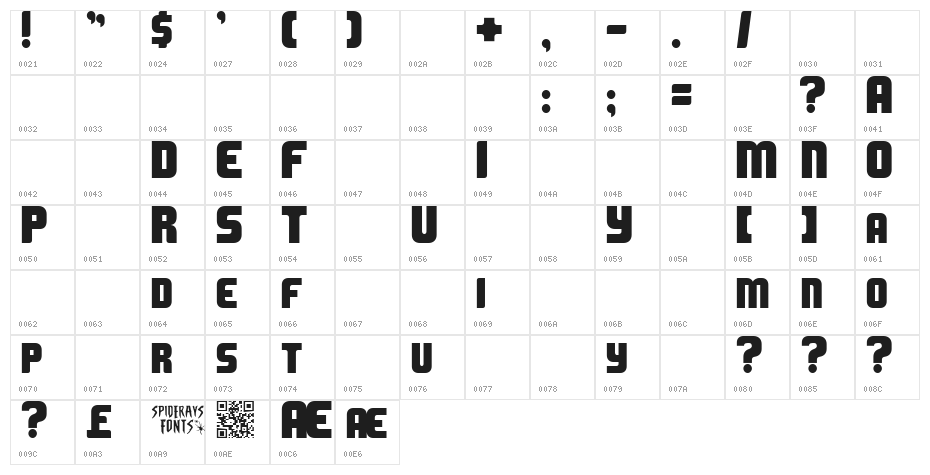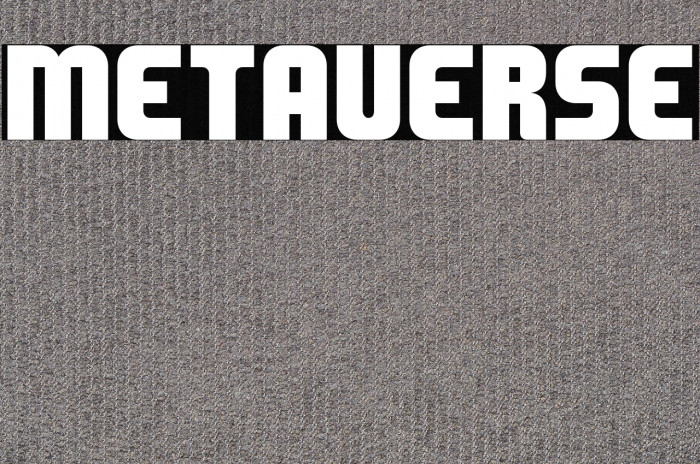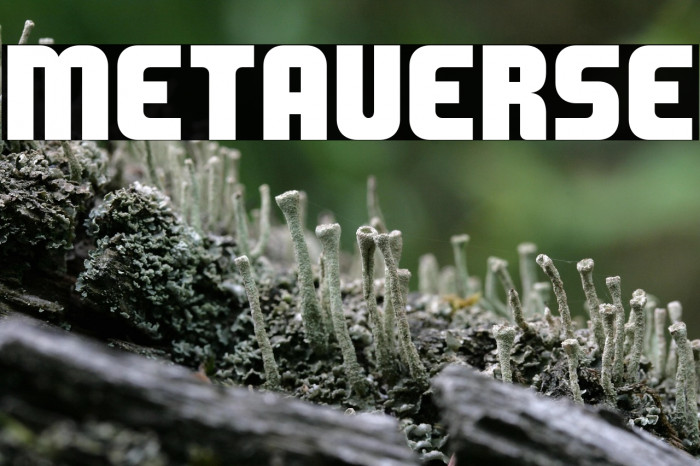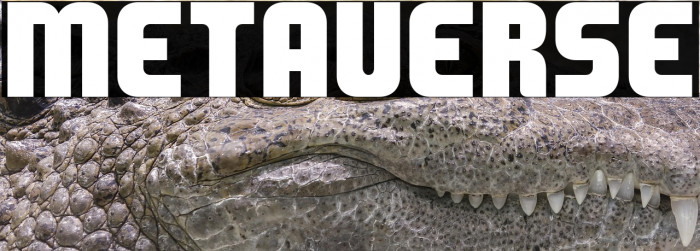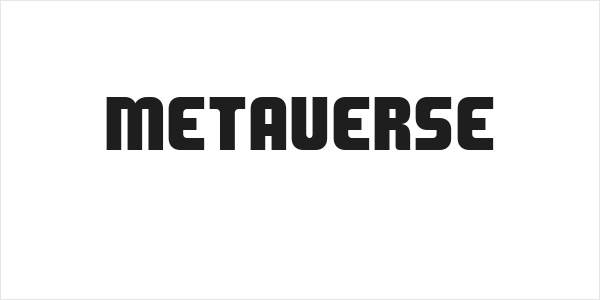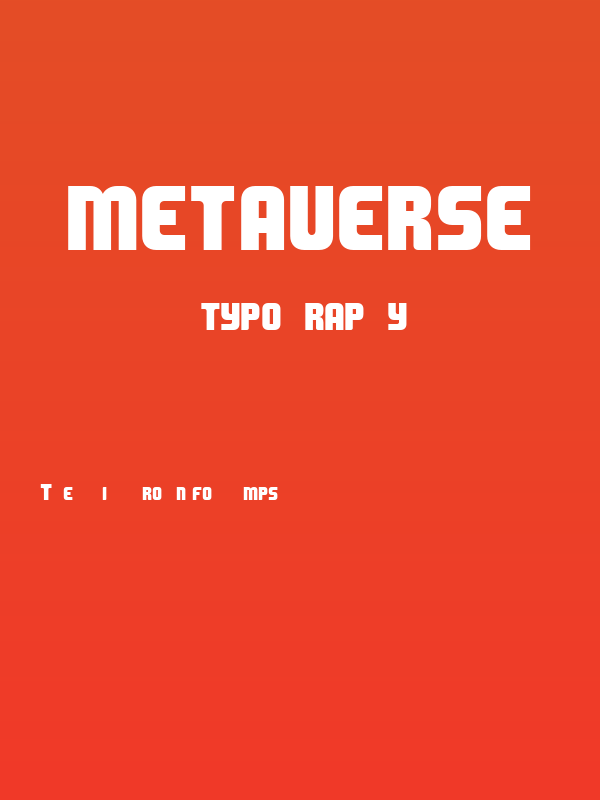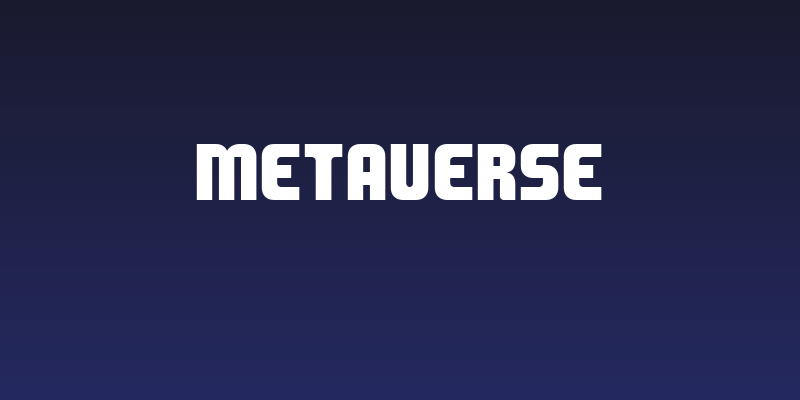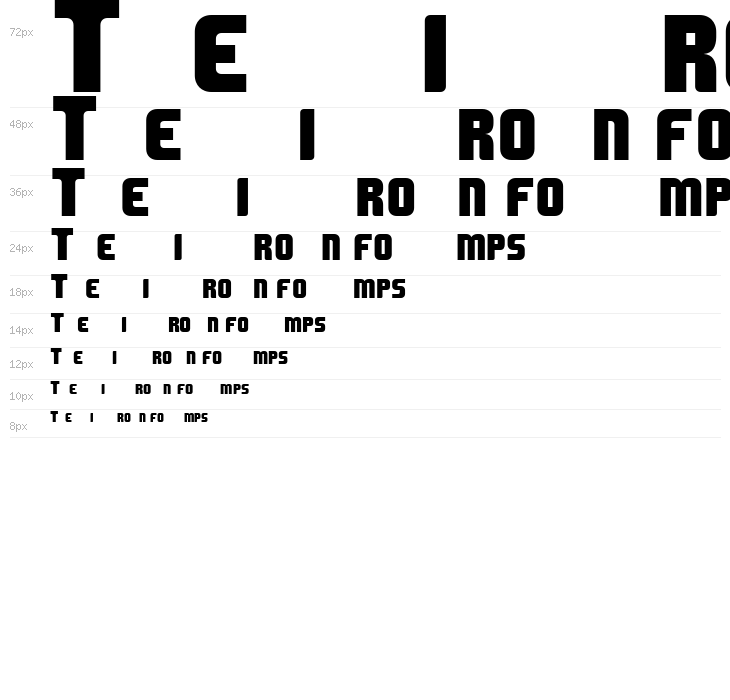
METAVERSE Font
METAVERSE Description
This font exhibits a bold and robust design with a modern aesthetic. The characters are uniformly thick, providing a strong visual impact. The edges are slightly rounded, giving a softened appearance without losing the overall boldness. The uppercase letters are consistent in height, while the lowercase letters maintain a similar width, ensuring uniformity across the text. The numbers are designed to match the boldness of the alphabet, making them stand out clearly. Special characters are crafted with the same attention to detail, ensuring they integrate seamlessly with the rest of the font. This font is ideal for making statements, with its clear and assertive presence.
METAVERSE
| Proposed Projects | Ideal for branding, headlines, posters, and digital media where a strong visual impact is needed. |